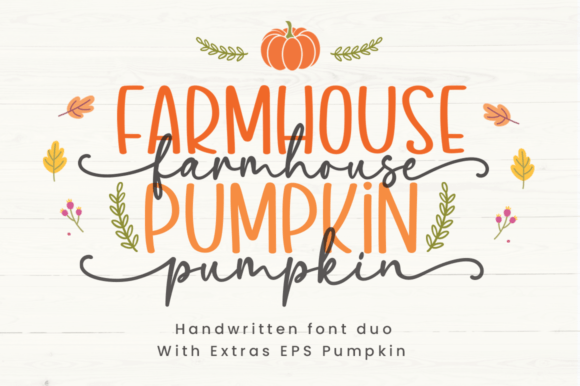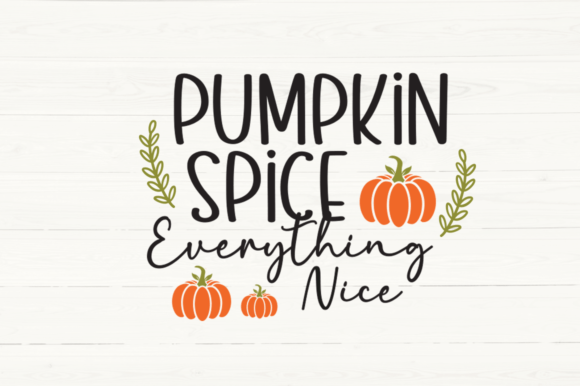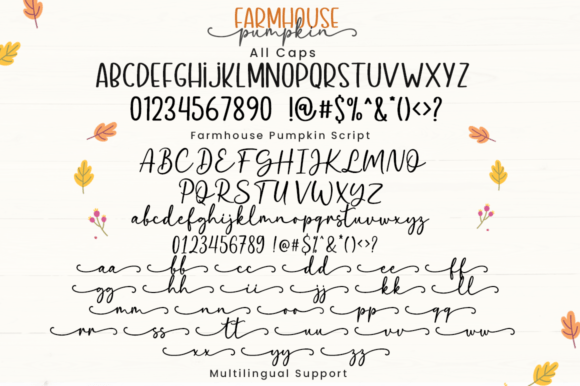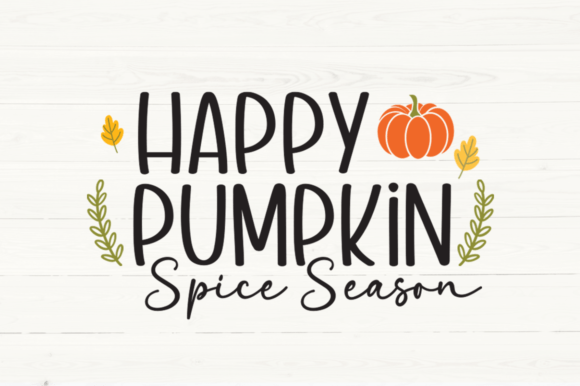
Farmhouse Pumpkin Font
About the Farmhouse Pumpkin Font
Add a touch of class to your work with the Farmhouse Pumpkin Font, a truly exceptional typeface. Farmhouse Pumpkin is a cute and lovely handwritten font duo (sans and script). Its casual charm and fun personality are perfect for creating cozy autumn designs.
Farmhouse Pumpkin excels in projects requiring a friendly, approachable aesthetic. Ideal applications include logos for small businesses (bakeries, cafes, craft shops), social media graphics, short invitations, and packaging for food or home goods. The script style works well for headings or short text-based elements, while the sans-serif provides a readable alternative for supporting information.
However, avoid using Farmhouse Pumpkin for extensive body text or UI elements; its informal nature compromises readability in large blocks of text. Small sizes, especially in the script, can quickly become illegible.
Pairing it with a clean sans-serif like Lato or Open Sans for body text creates a balanced design. For a more rustic feel, consider pairing the script with a serif font such as Playfair Display, while a geometric sans-serif like Montserrat would offer a modern contrast.
Farmhouse Pumpkin Font Usage Examples
Farmhouse Pumpkin Font Example